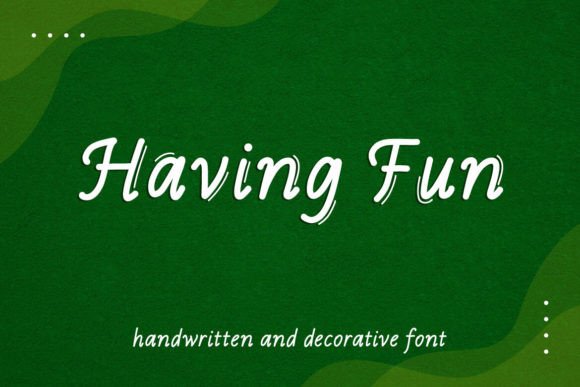
Welcome to the world of Having Fun Font, a remarkable script typeface crafted by the talented Mightyfire. This charming font exudes a warm and inviting personality, ready to add a touch of delight to your creative projects. Its free-flowing, whimsical design captures the essence of handwritten notes, effortlessly evoking a sense of authenticity and intimacy.
Dive into the world of Having Fun Font and discover a universe of possibilities. Its versatility knows no bounds, making it the perfect choice for a diverse range of projects, including:
- Recipe Books: Let your culinary creations shine with Having Fun Font as it transforms ordinary recipes into delightful culinary adventures. Its charming style adds a personal touch, making each dish feel like a homemade masterpiece.
- Invitations: Spread joy and anticipation with Having Fun Font as it graces your invitations. Whether it's a birthday celebration, a wedding extravaganza, or a casual get-together, this font sets the tone for an unforgettable event.
- Branding: Create a brand identity that resonates with warmth and approachability. Having Fun Font lends itself beautifully to logos, business cards, and marketing materials, leaving a lasting impression on your customers.
- Social Media: Elevate your social media presence with Having Fun Font as it adds a touch of playful elegance to your posts, stories, and graphics. Engage your audience with a font that speaks volumes about your brand's personality.
- Personal Projects: Unleash your creativity and let Having Fun Font accompany you on your artistic journey. From scrapbooking to journaling and everything in between, this font transforms your words and ideas into captivating expressions.
With Having Fun Font, you have the power to turn the ordinary into the extraordinary. Its charming appeal captivates hearts, while its versatility ensures endless creative possibilities. Embrace the joy of Having Fun Font and embark on a design adventure like no other.